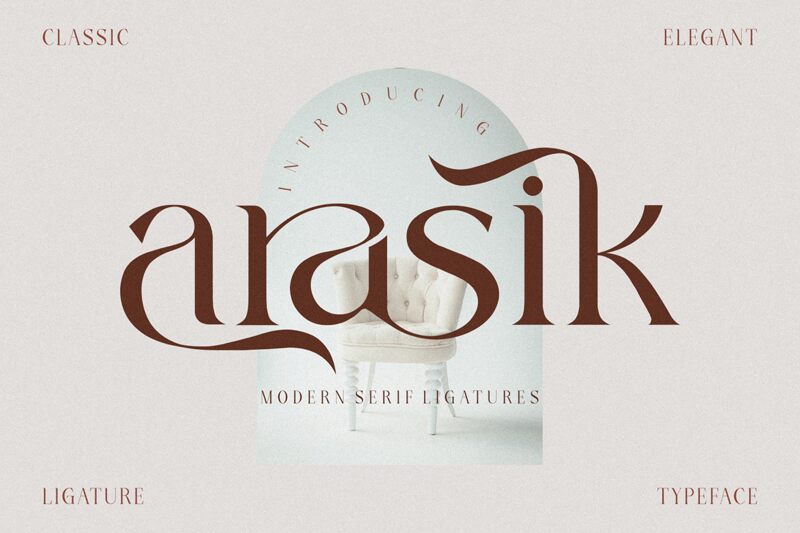
Arasik, a modern serif font designed by Penatic Studio, brings a refined elegance to any project. With its semi-light weight, this font exudes sophistication and grace.
Its clean lines and balanced proportions make it suitable for a wide range of projects, including editorial design, logo creation, and web typography. Arasik's versatile nature allows it to seamlessly adapt to both professional and creative endeavors, bringing a touch of class and modernity to any design.
Elevate your next project with the timeless beauty of Arasik.